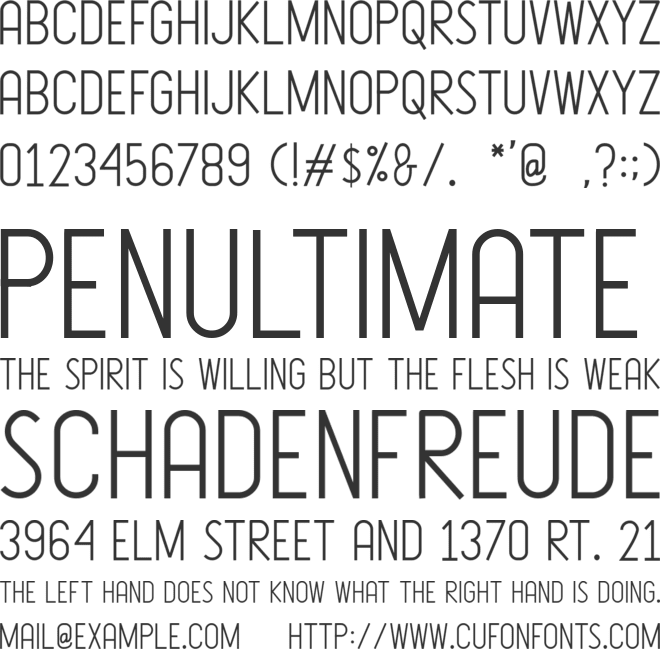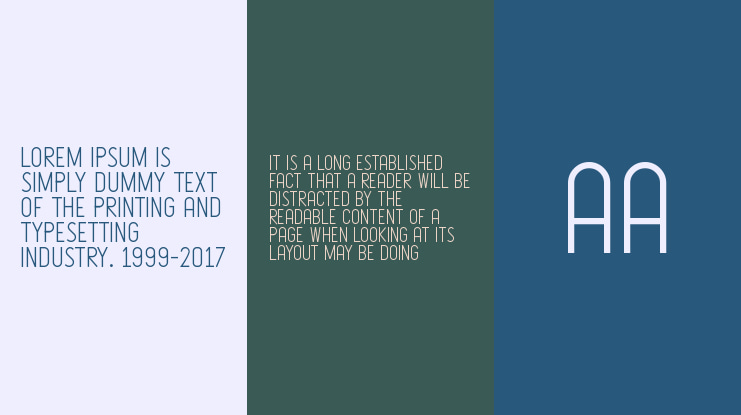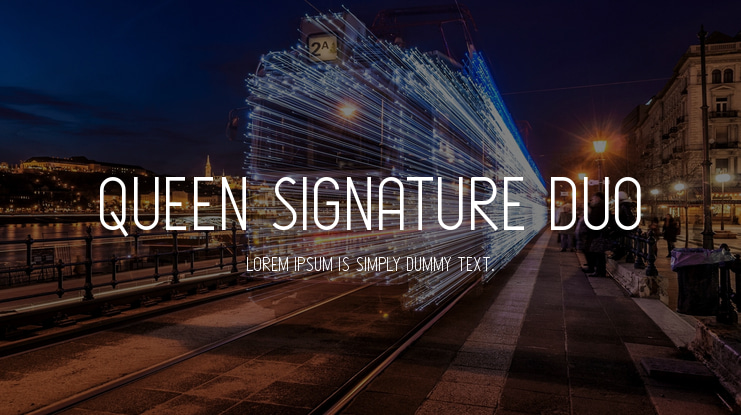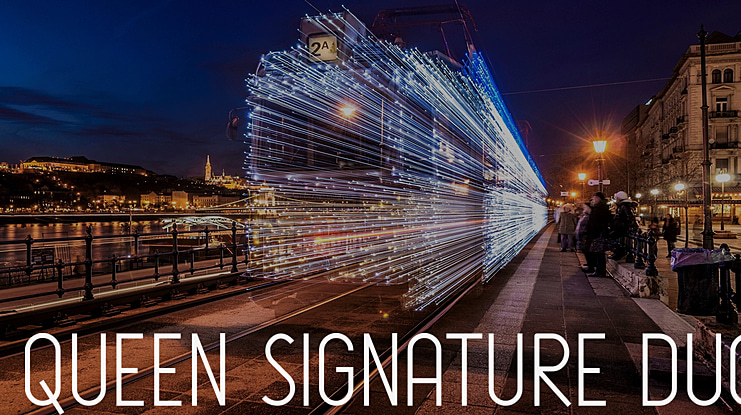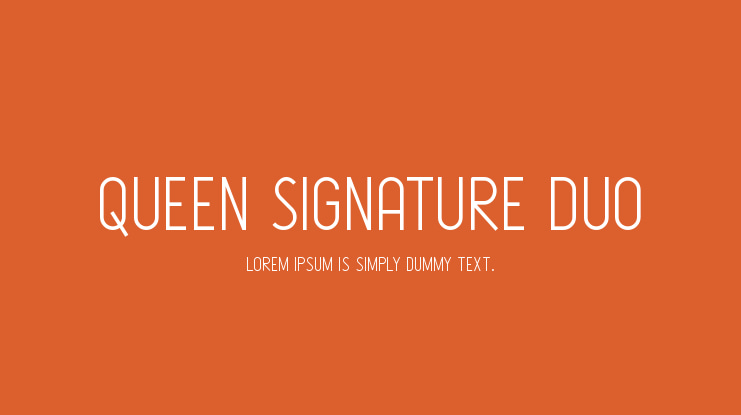
Queen Signature Duo Font Family
Queen Signature Font Duo, Display & Script Typefont. A collection of letters and numbers suitable your projects also great for Logotype, Branding Design, Logo Design, Digital Lettering Arts, T-Shirt/Apparel, Poster, Magazine, Signs, Advertising Design, and any design needs.Click our website :https://staircaselab.com/product/queen-signature-font-duo/